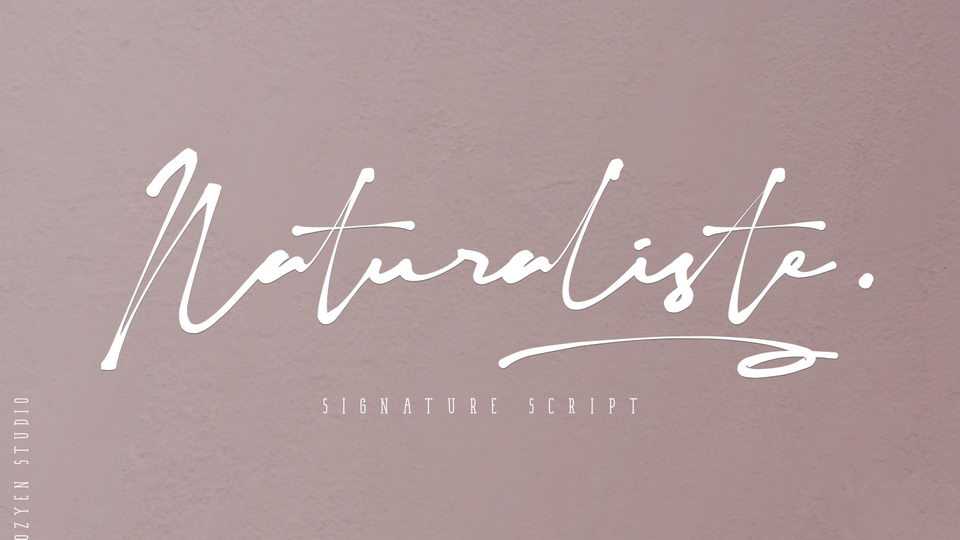
Download Naturaliste font, an incredibly unique and interesting handwritten typeface. Naturaliste is the ideal choice for any design that requires a personalized touch.
Designer: Mozyen Studio